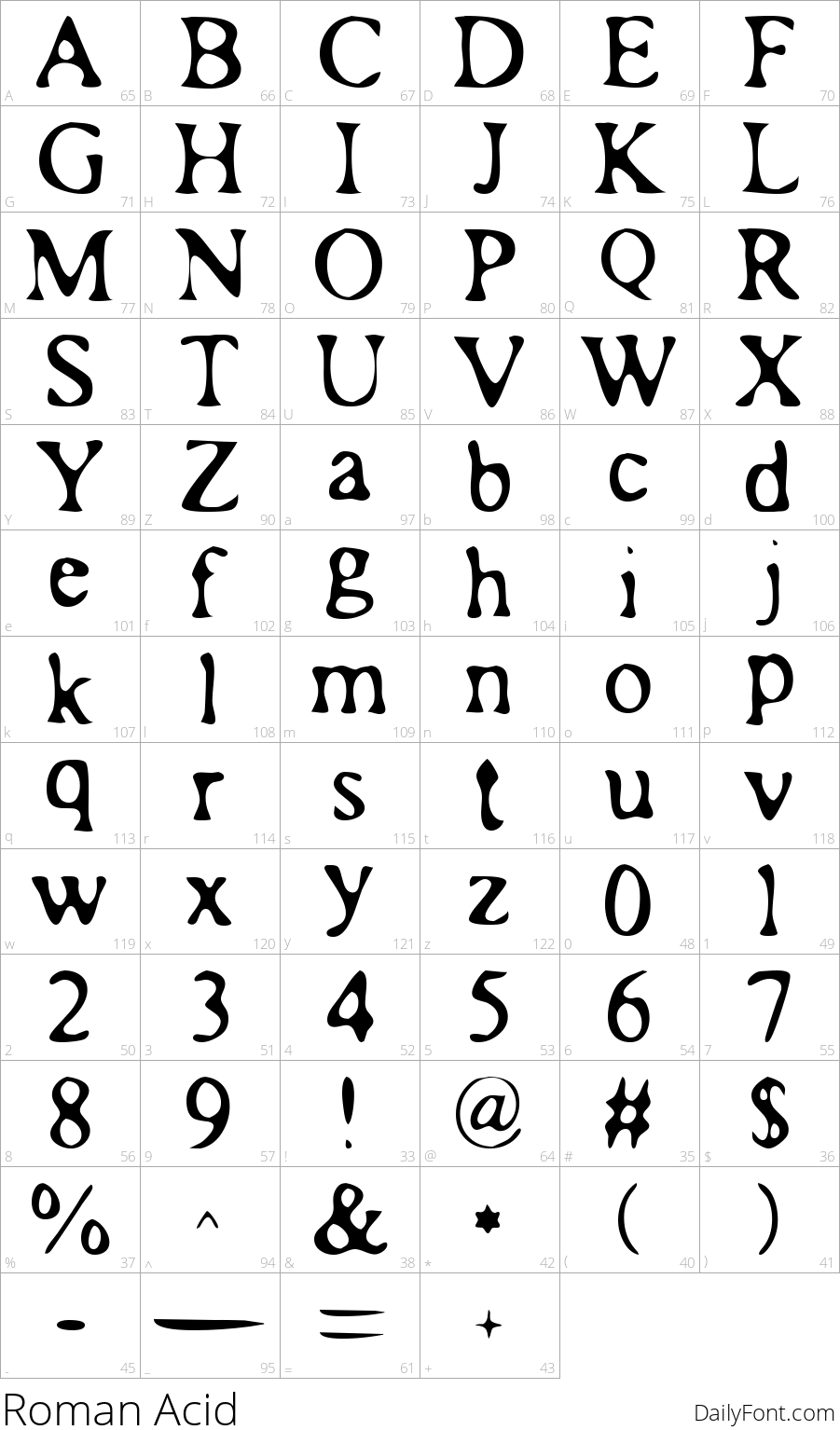
Roman Acid
Wavy, melting serif caps with a psychedelic drip
Roman Acid takes a serif letterform and lets it wobble, with an uneven baseline and slightly warped strokes that give it an organic, almost psychedelic character. It reads as artistic and unconventional rather than clean and formal.
Use it for psychedelic music posters, artistic and creative studio branding, quirky editorial headers, and any design that wants an offbeat, hand-drawn serif. Free to download for personal use.